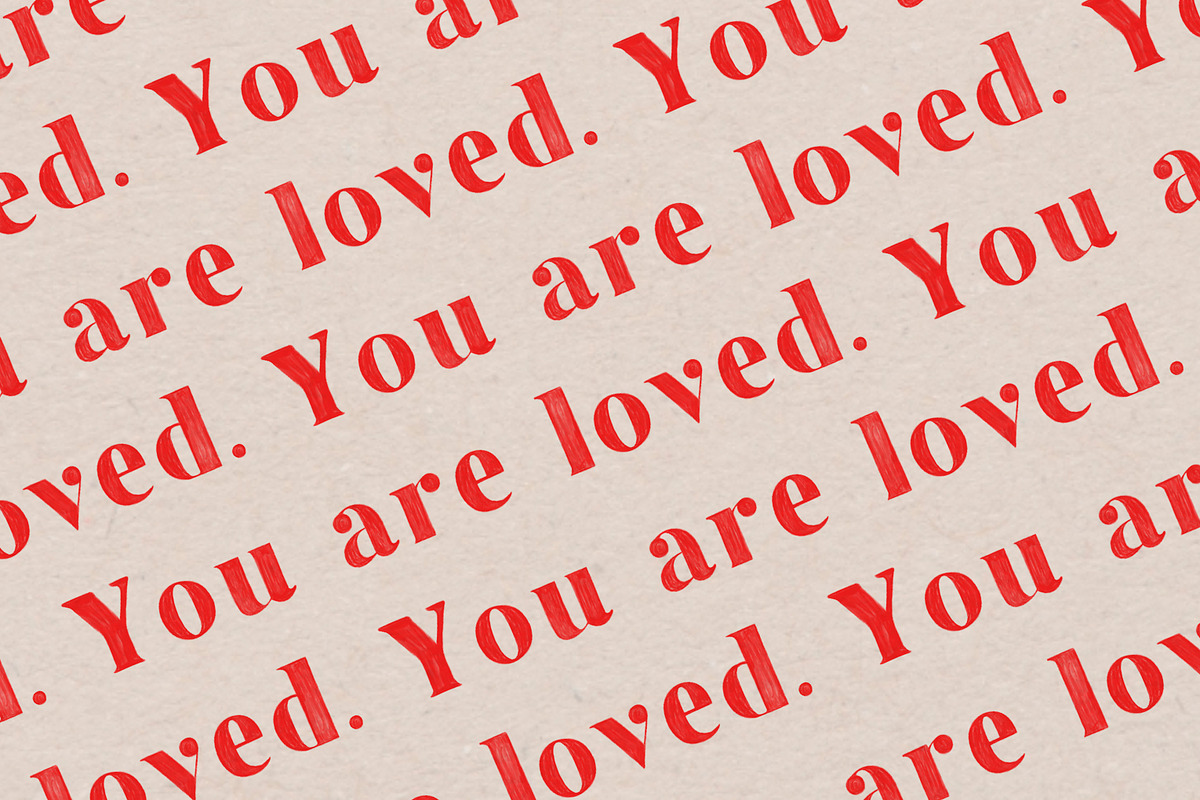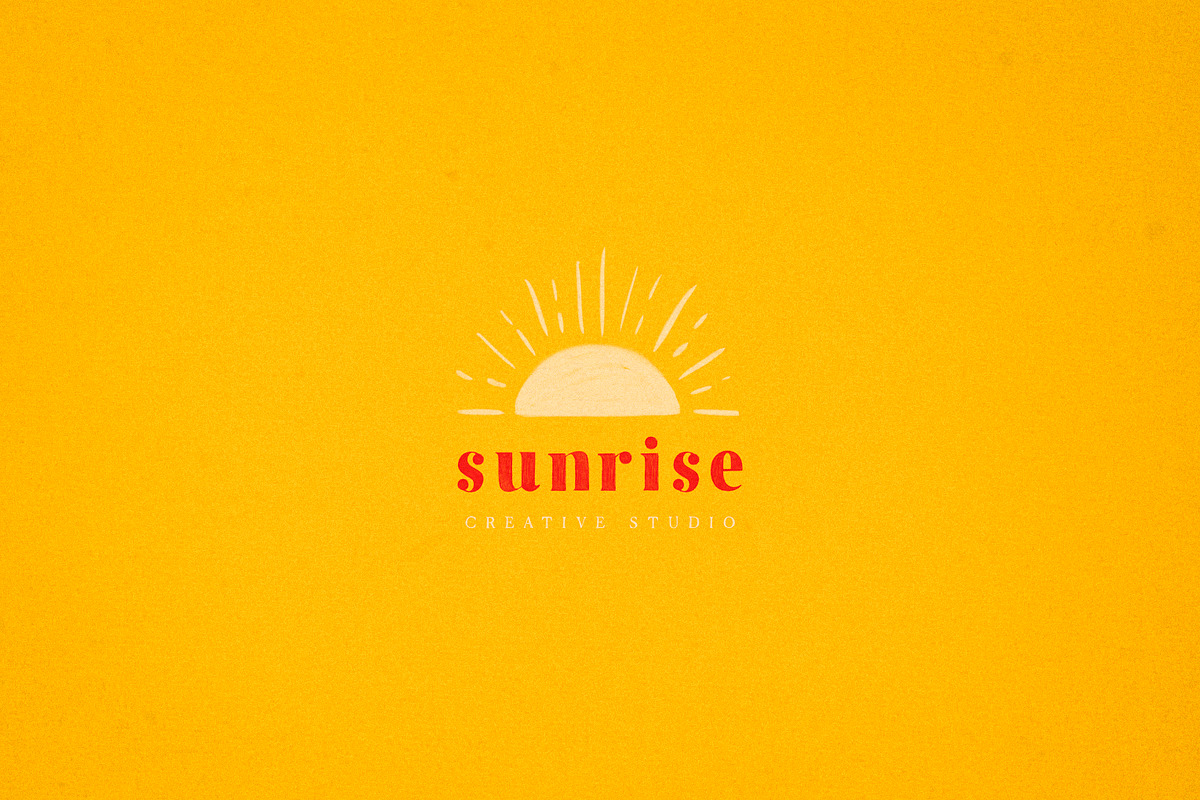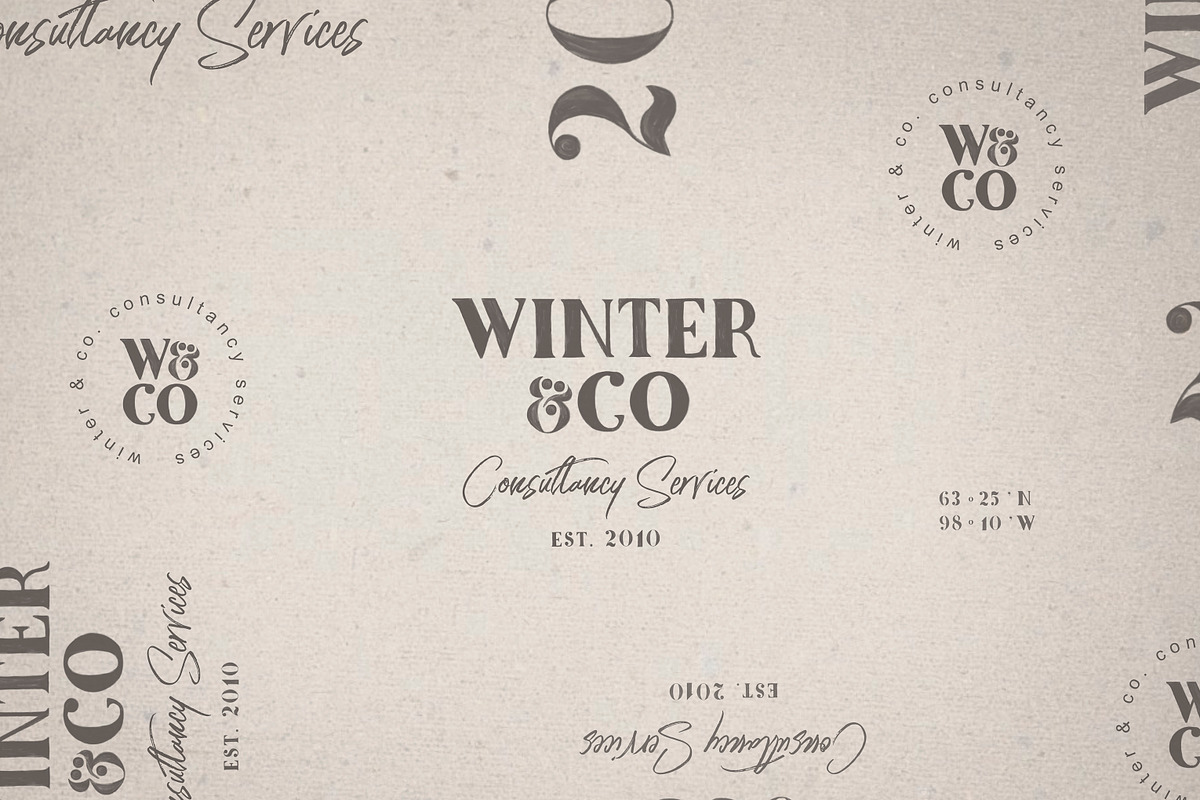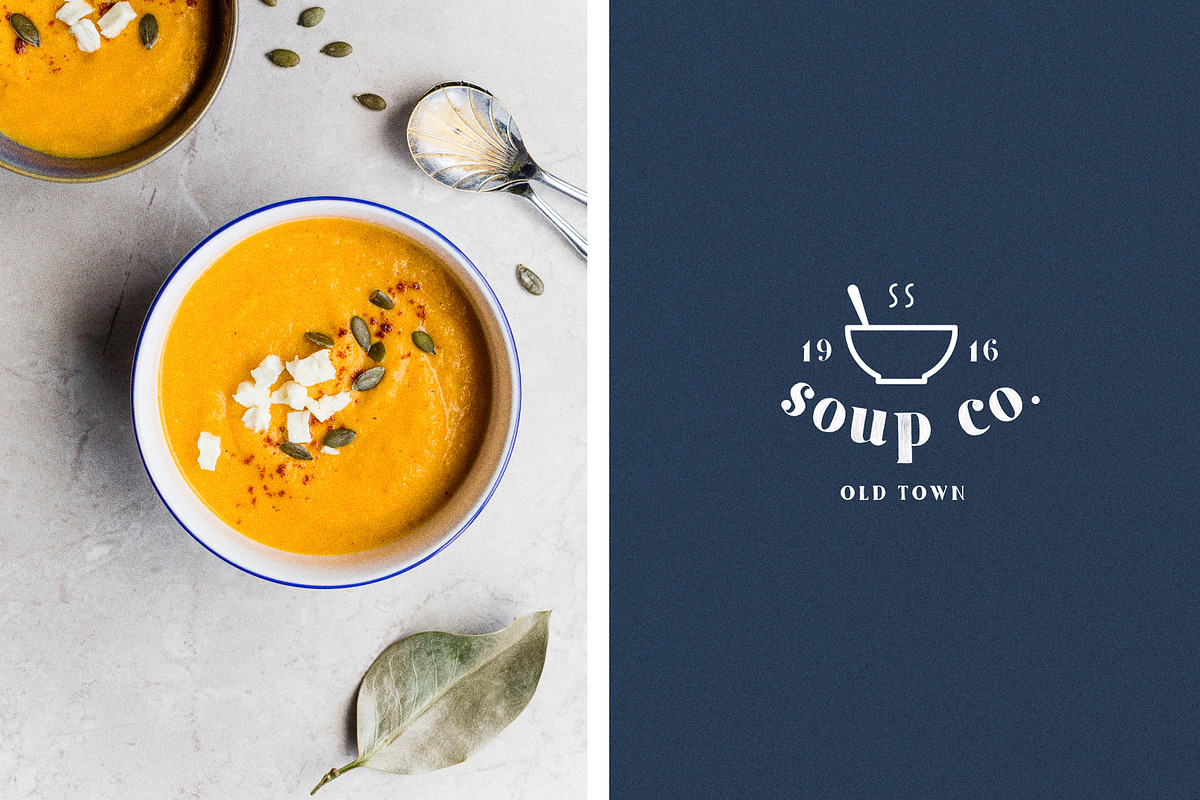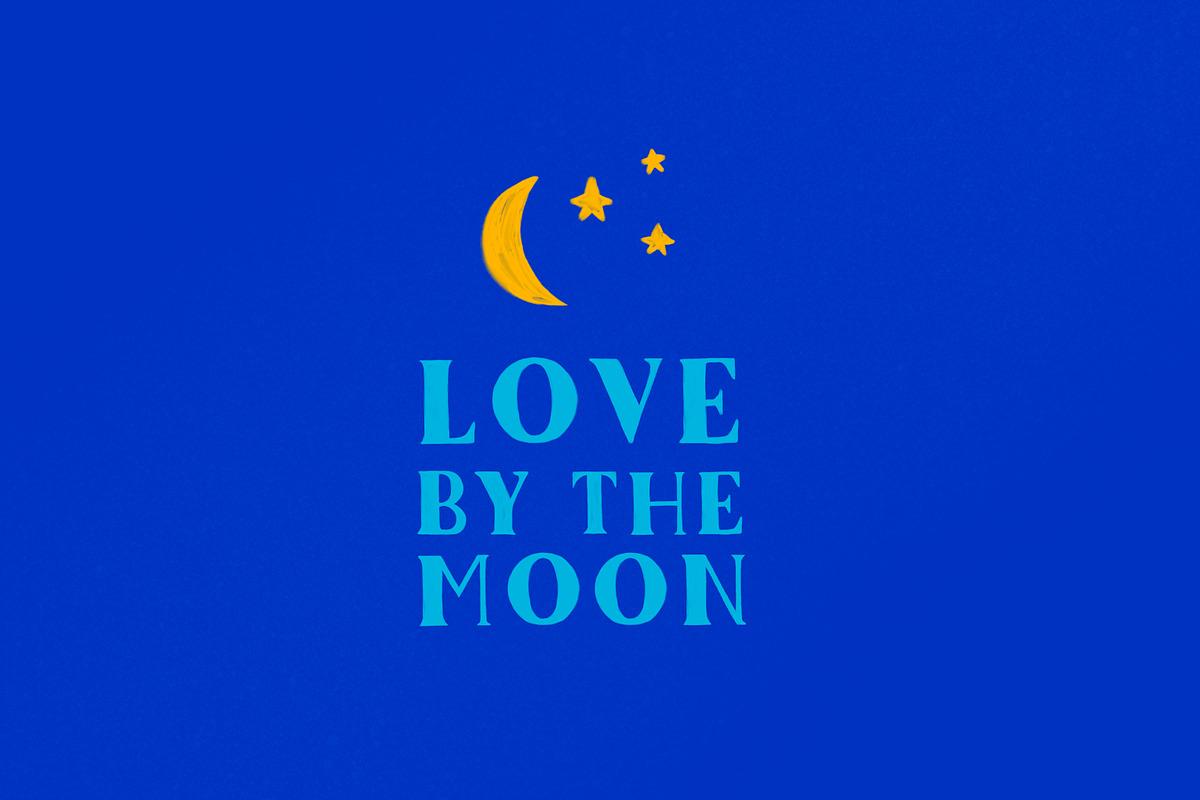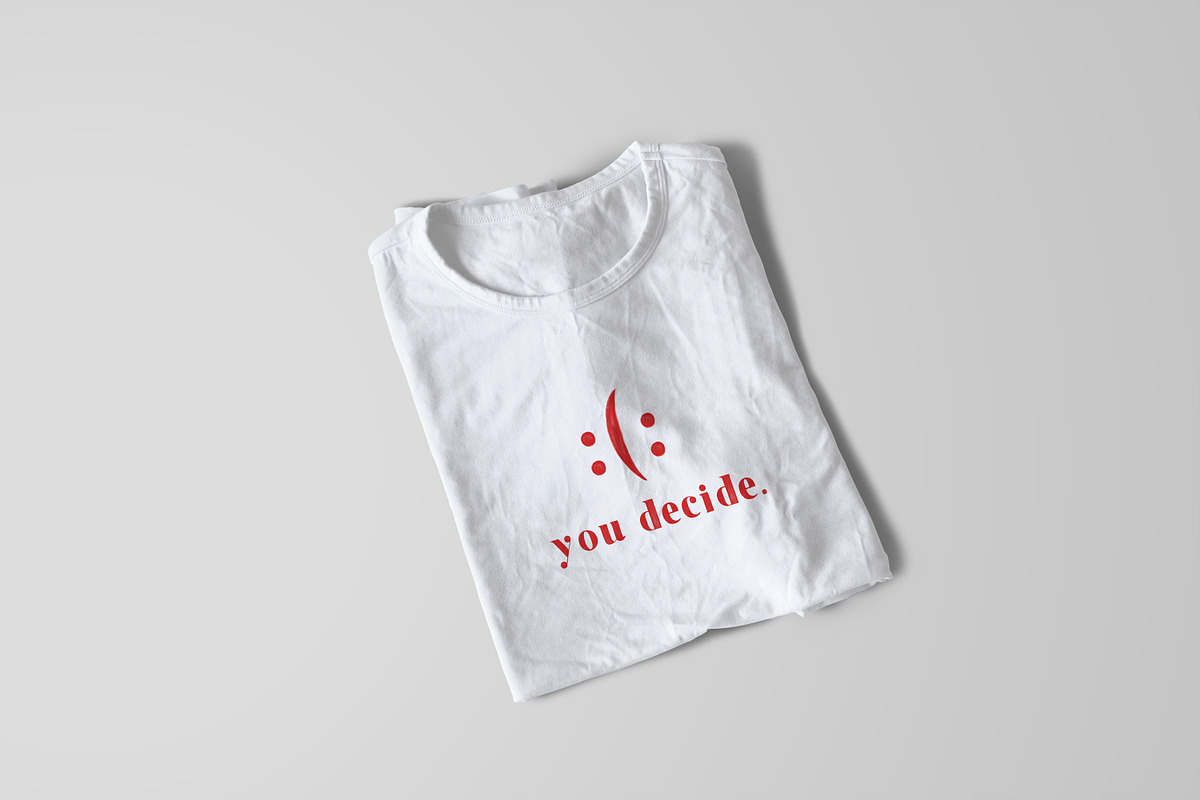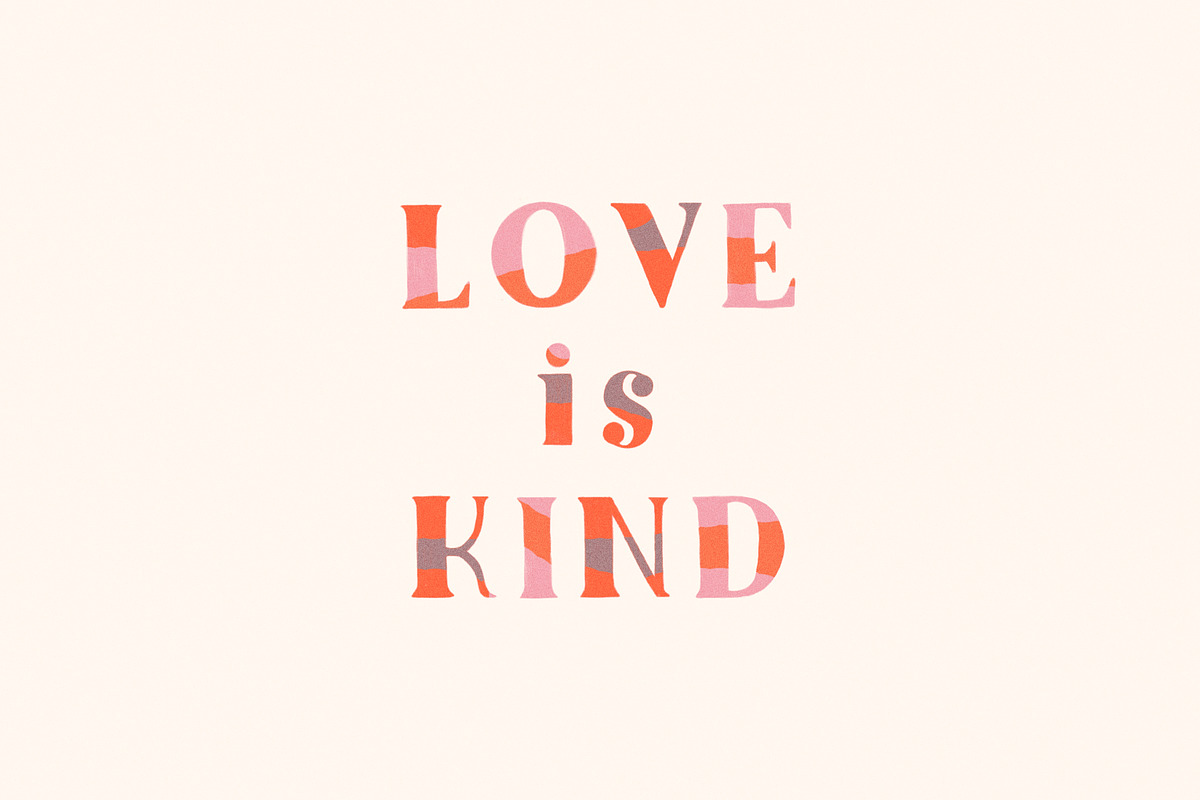
Magic Colour SVG Font
Magic - Colour SVG Font + Extra Doodles!
- All the letters are raster bitmap font - each letter has been painted a dozen of times.
Why Magic Colour SVG Font is worth a look
Magic Colour SVG Font by elvinova fits naturally into Branding, posters, packaging, typography.